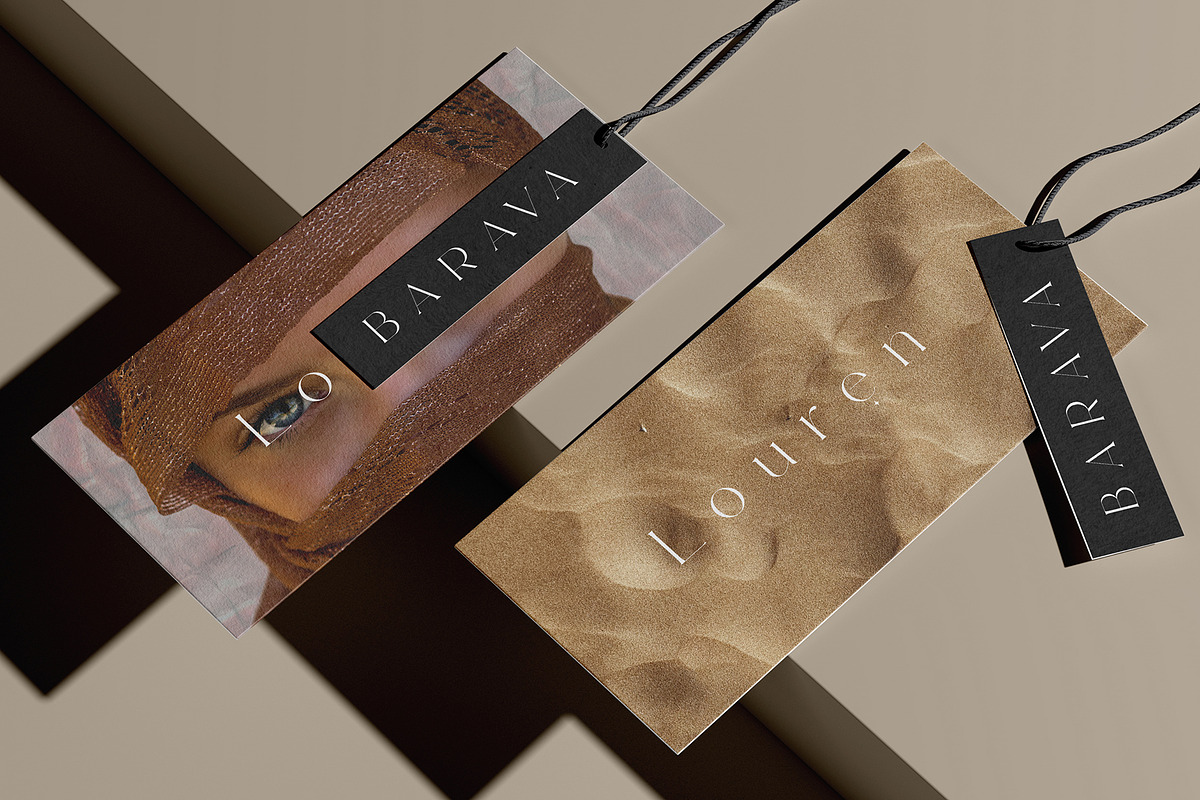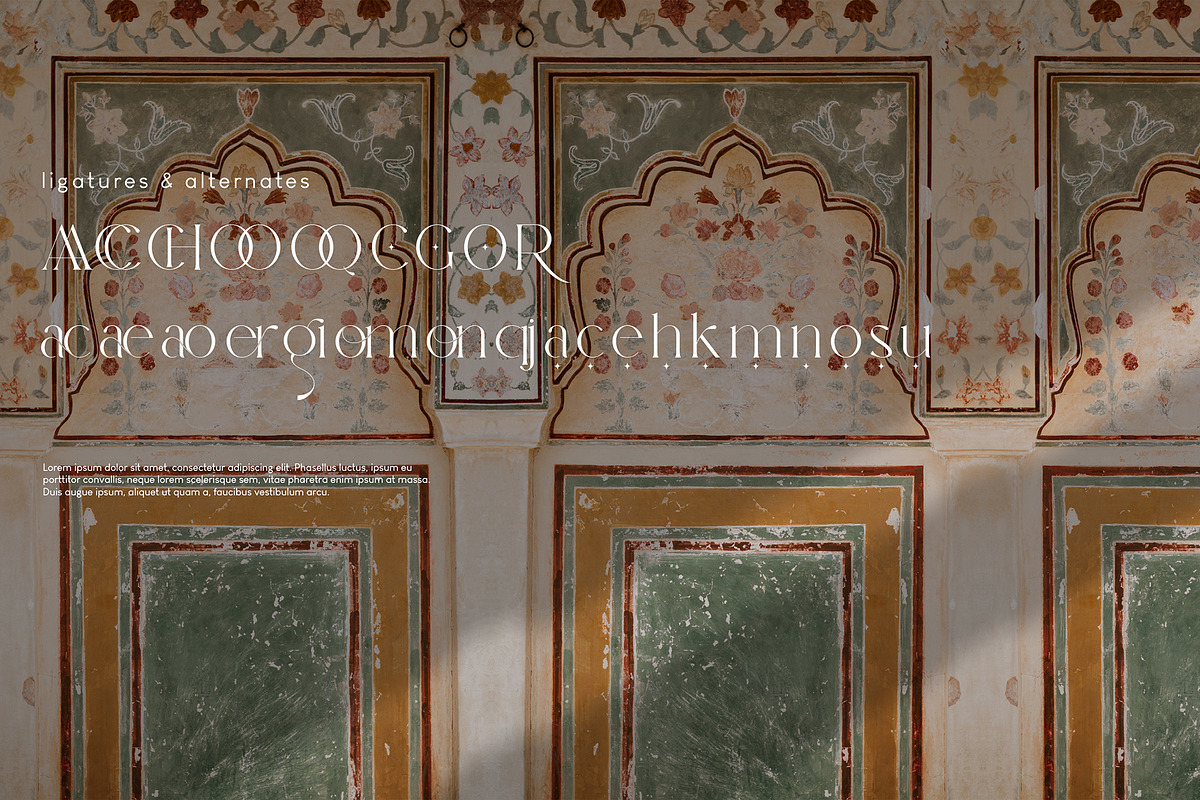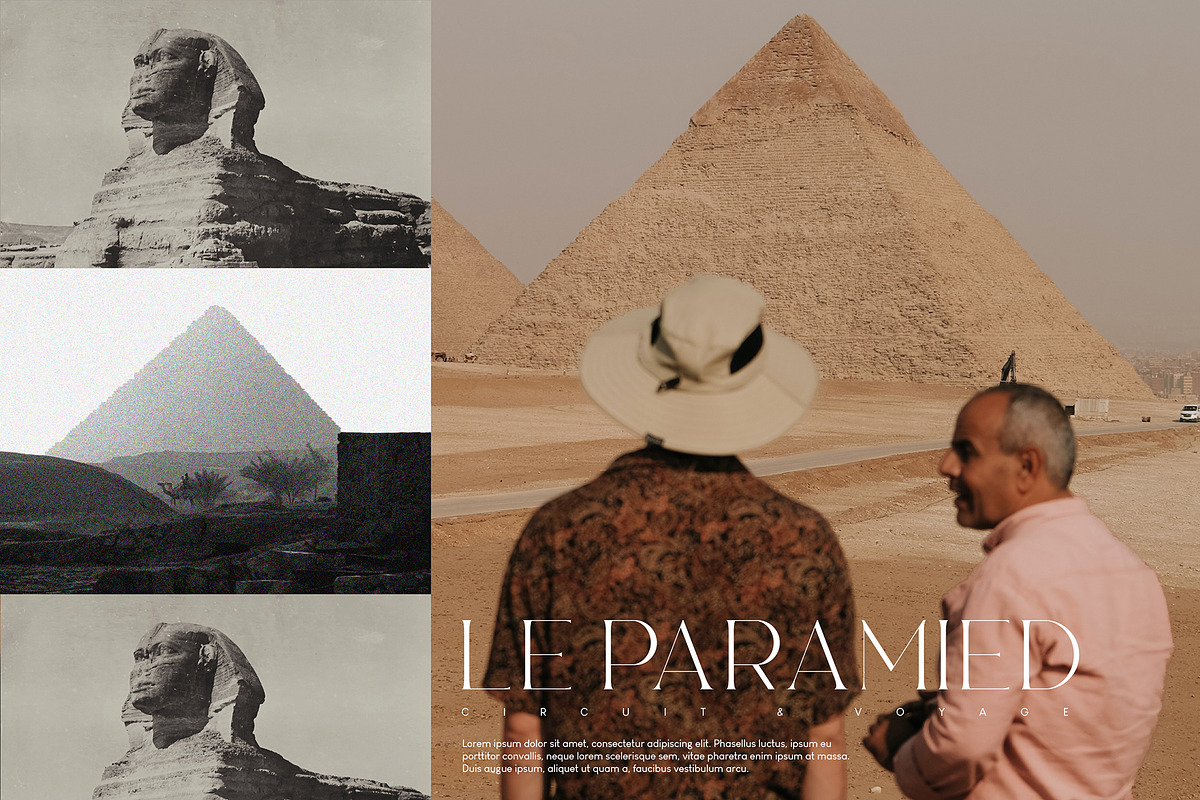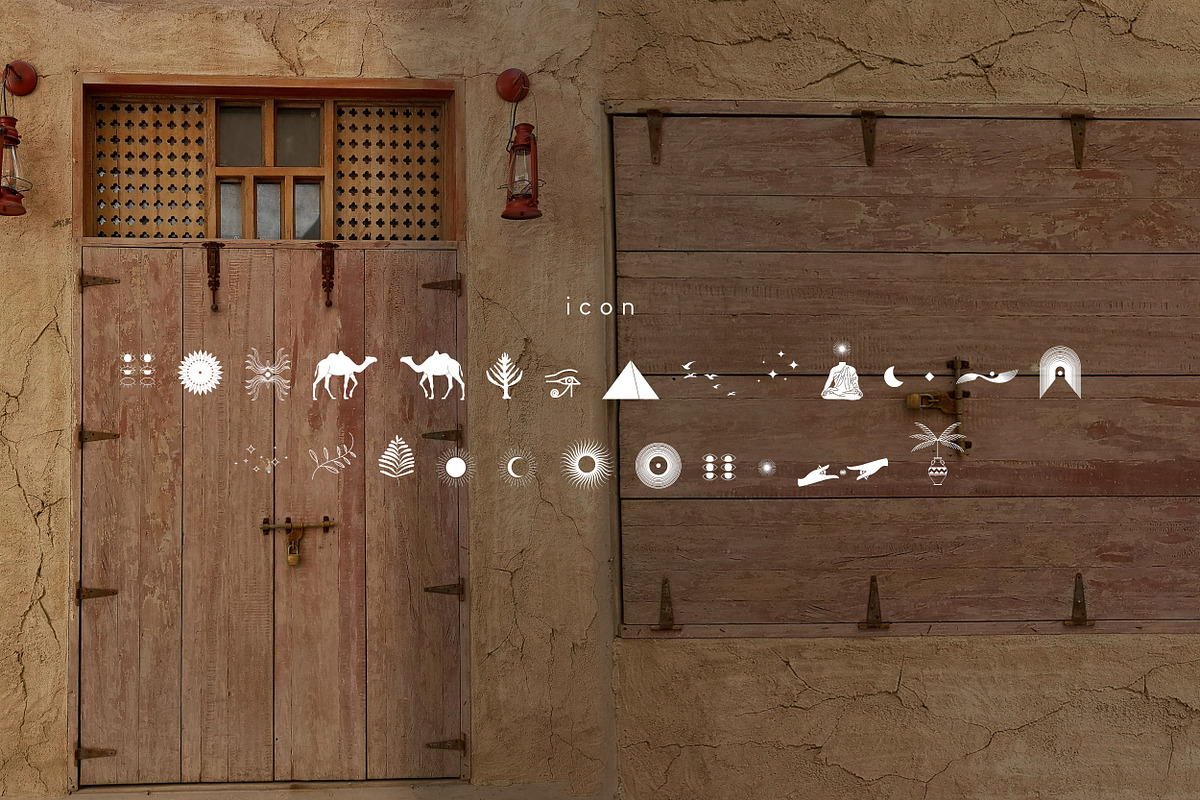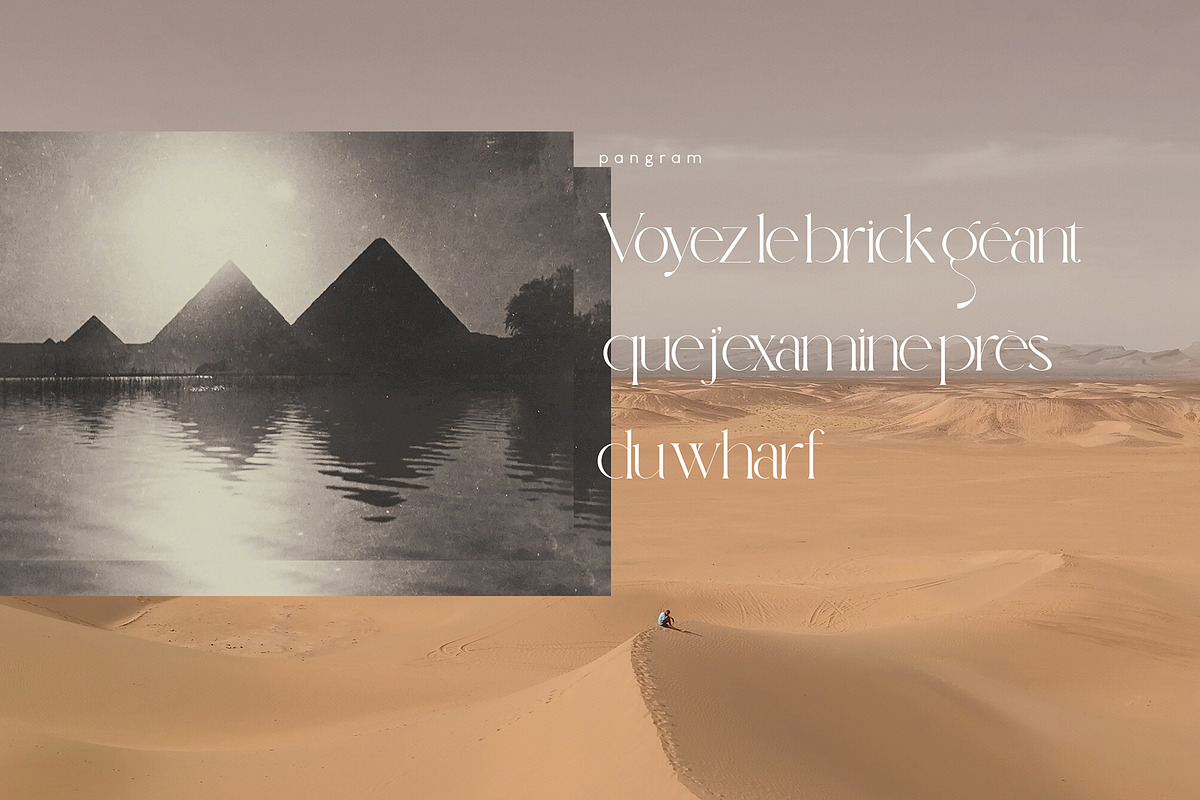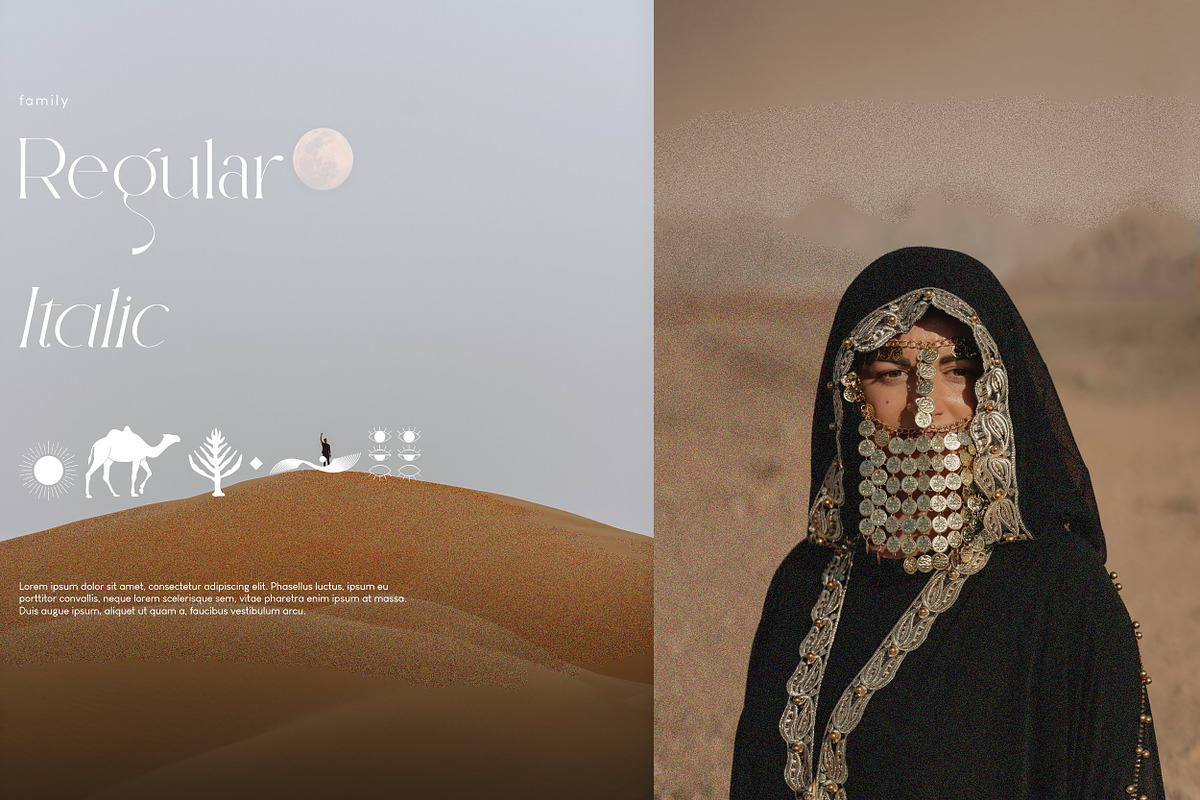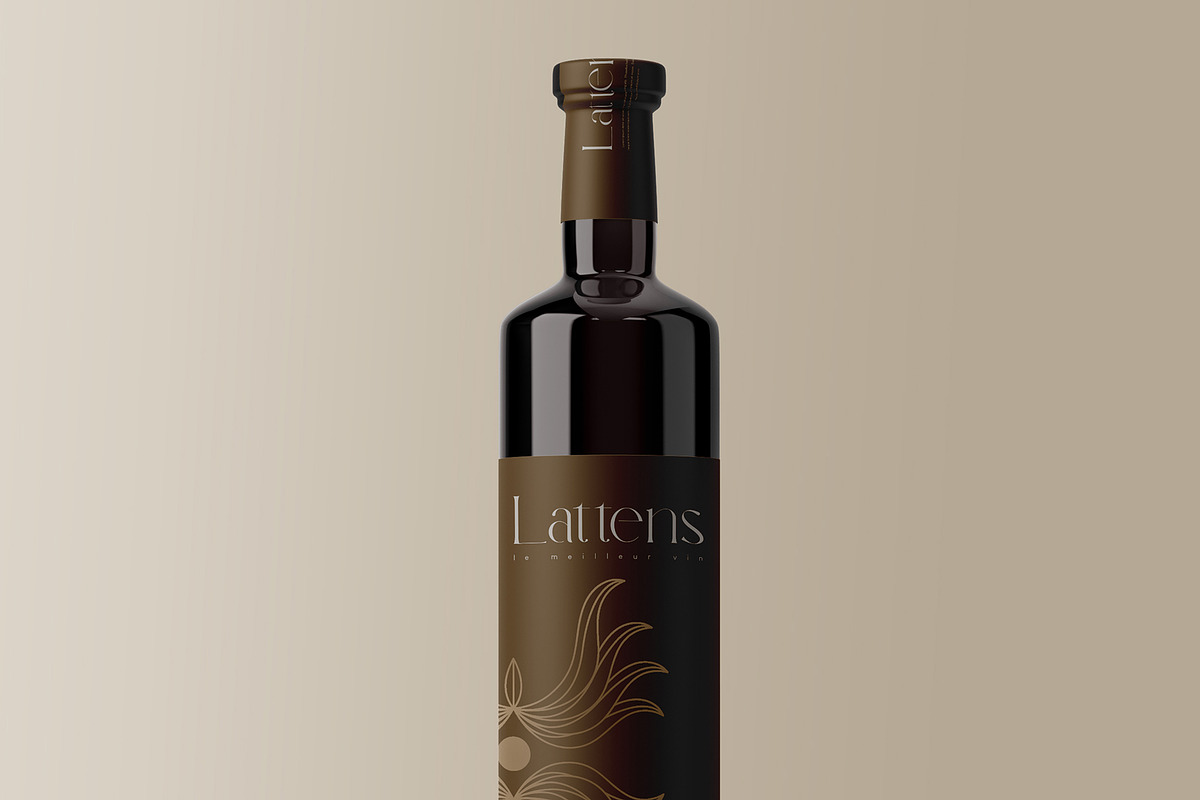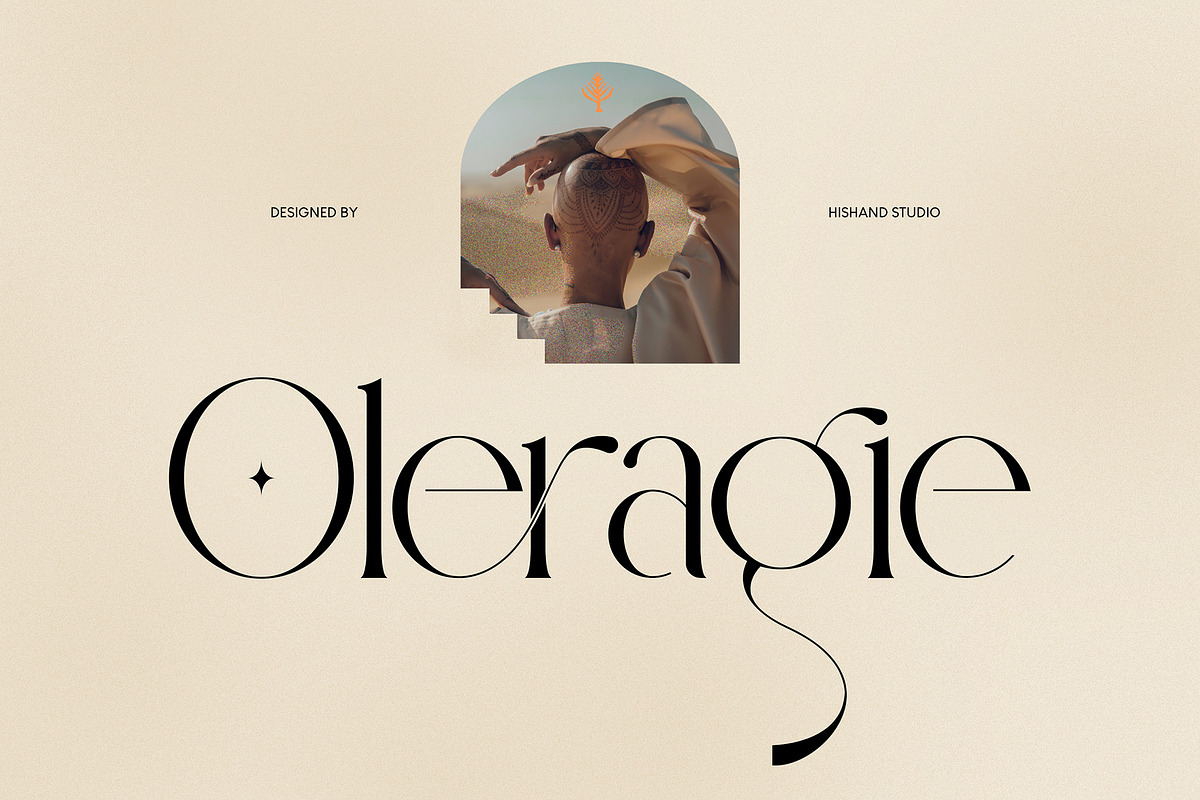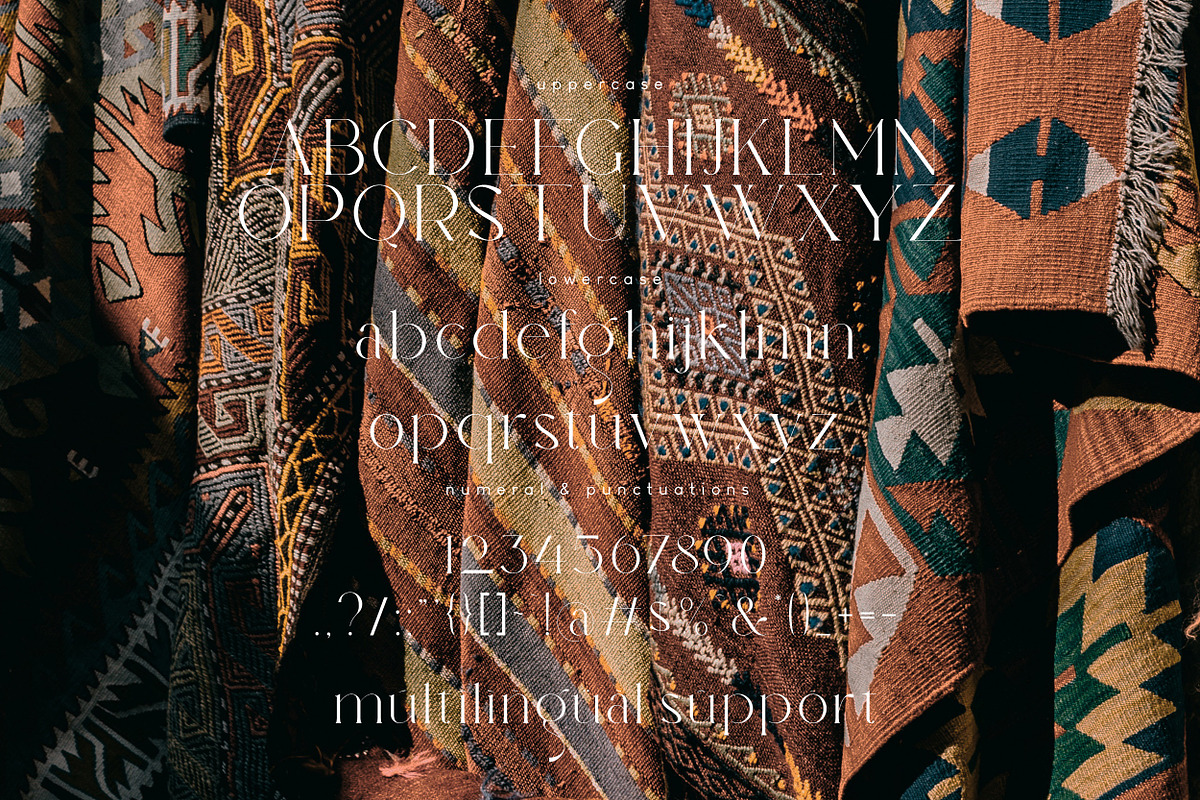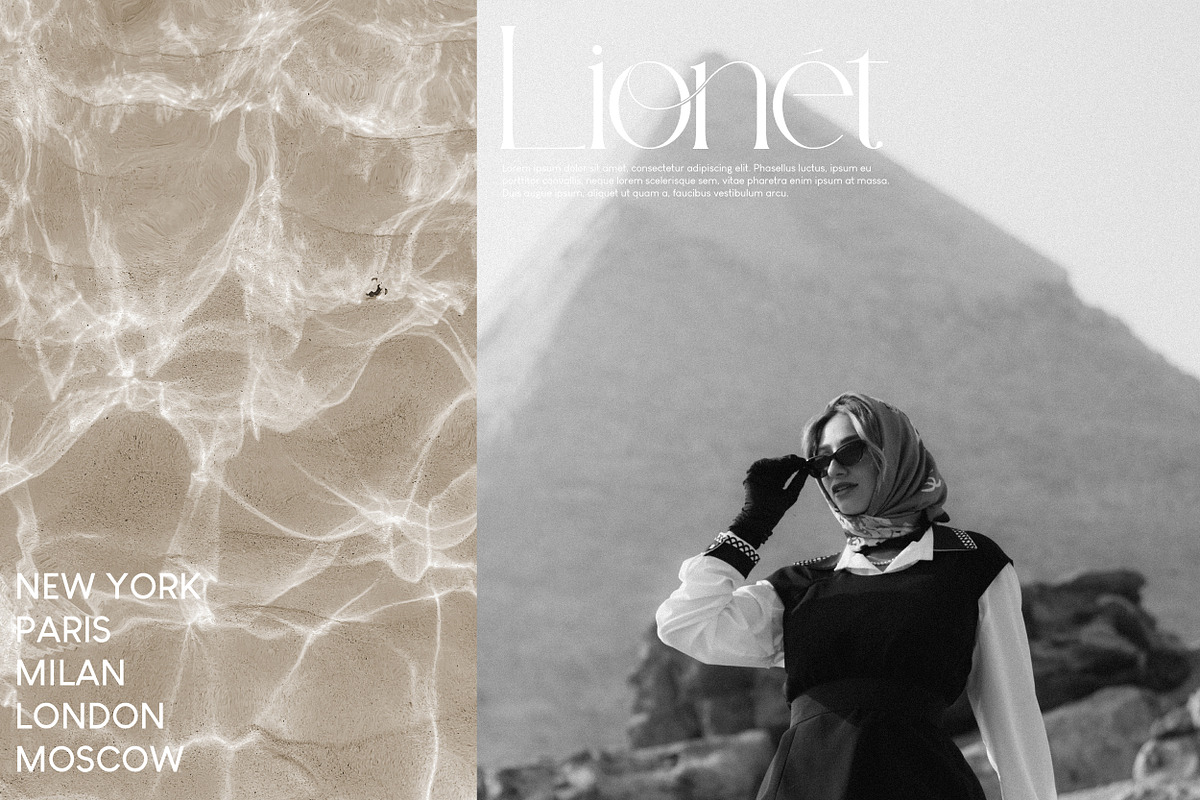
Oleragie Elegant Serif
Introducing Oleragie, a classic modern serif with an aesthetic look inspired by the Egyptian and middle east atmosphere. Perfect for those who need a touch of elegance, stylish, classy, beautifully thin, and modernity for their design. Complete with
- alternates
- regular
- italic
- icon
- kerning
- multilingual support